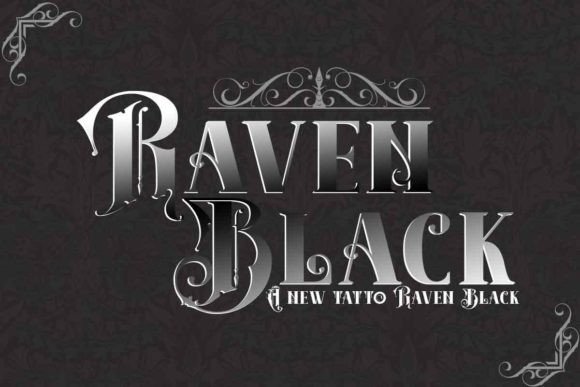
Introducing Raven Black, the Best Font For Packaging by edwar.sp111. This blackletter font is perfect for those who want to add a touch of royalty to their packaging designs. With its charming and classic carved shape, Raven Black exudes elegance and sophistication, making it the go-to choice for designers who want to make a statement.
Raven Black is not just any ordinary font. It is a modern and luxurious typeface that will captivate your audience and leave a lasting impression. Whether you are designing a logo, a poster, or a product label, this font will elevate your work to the next level and give it a touch of class.
Crafted with attention to detail, Raven Black is the perfect combination of tradition and innovation. Its unique design is perfect for any creative project that requires a bold and captivating font. With Raven Black, you can confidently create stunning designs that will make your brand stand out from the crowd.
Incorporating Raven Black into your designs is easy and effortless. This font family is highly versatile and can be used in a variety of ways, from headlines to body text. Its keyword "Best Font For Packaging" speaks for itself, making it the perfect choice for designers who want to create packaging that will impress their customers.
In conclusion, Raven Black is a must-have for any designer looking to add a touch of elegance and luxury to their designs. Don't miss out on this opportunity to create stunning designs that will captivate your audience and leave a lasting impression.